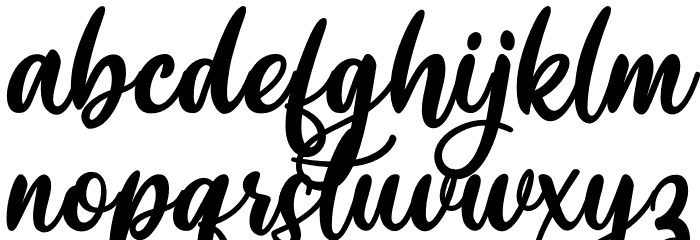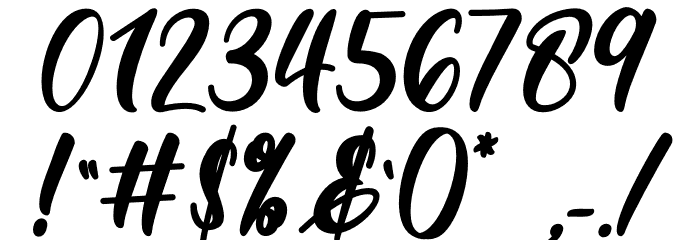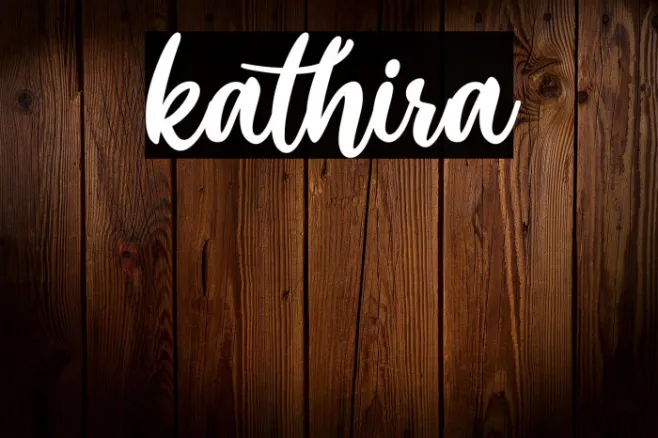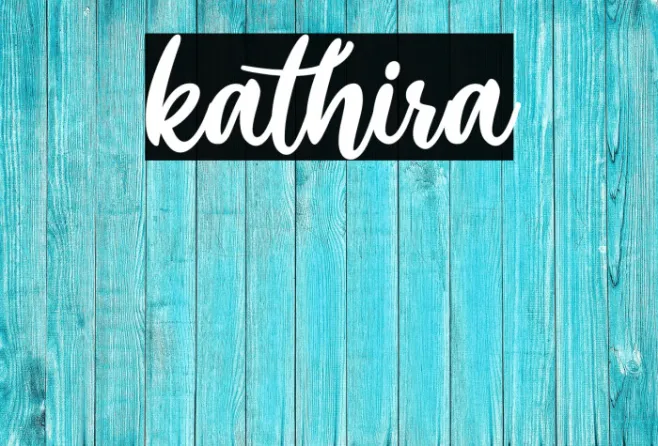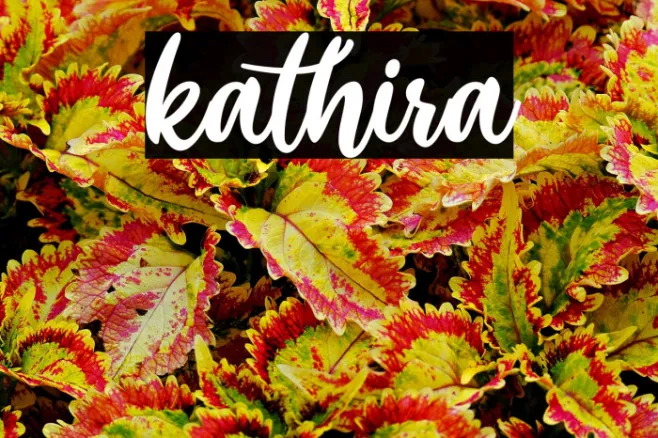
kathira Font
This font features a flowing, cursive style with elegant loops and swirls, giving it a sophisticated and artistic appearance. The uppercase letters are bold and prominent, with a graceful flair that makes them stand out. The lowercase letters maintain a consistent flow, creating a harmonious and connected look. Numbers and special characters are designed to complement the overall aesthetic, with a similar emphasis on curves and fluidity. This font is ideal for projects that require a touch of elegance and creativity, such as invitations, branding, and decorative designs.
A flowing, cursive font with elegant loops and artistic flair.
- Proposed Projects: Ideal for wedding invitations, branding, greeting cards, and decorative signage.
- Use Case: Logos, Headlines, Invitations